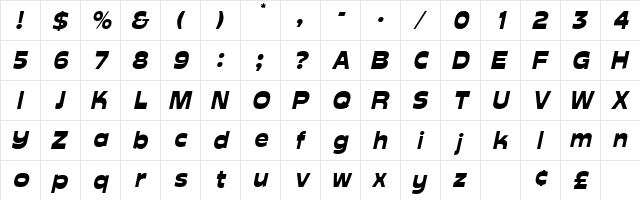
Elbe Oblique
Design Context for Elbe Typeface
Elbe offers clean, dependable letterforms without strong stylistic allegiance, making it a practical choice for designers who need flexibility. Its italic angle brings a sense of urgency and motion to the letterforms.
Pro Tip: Use Elbe for emphasis, pull quotes, and subheadings where its slanted energy can add rhythm to the layout.